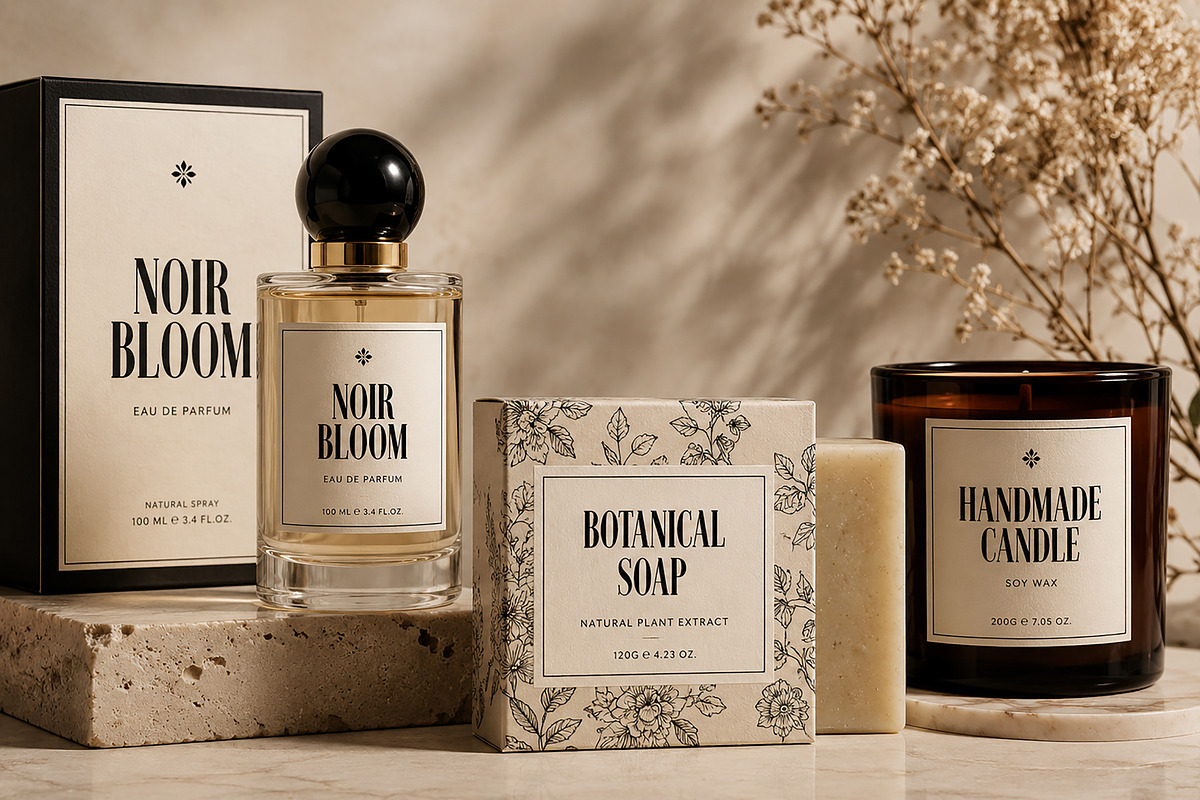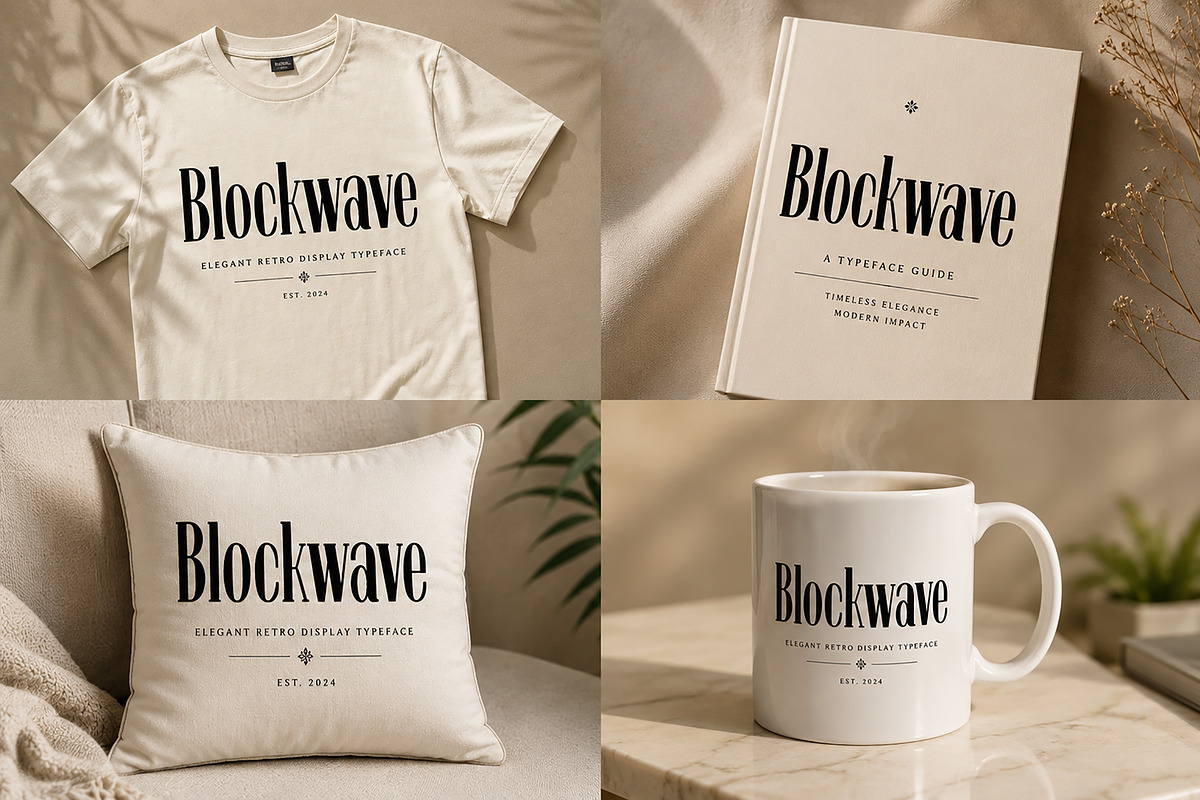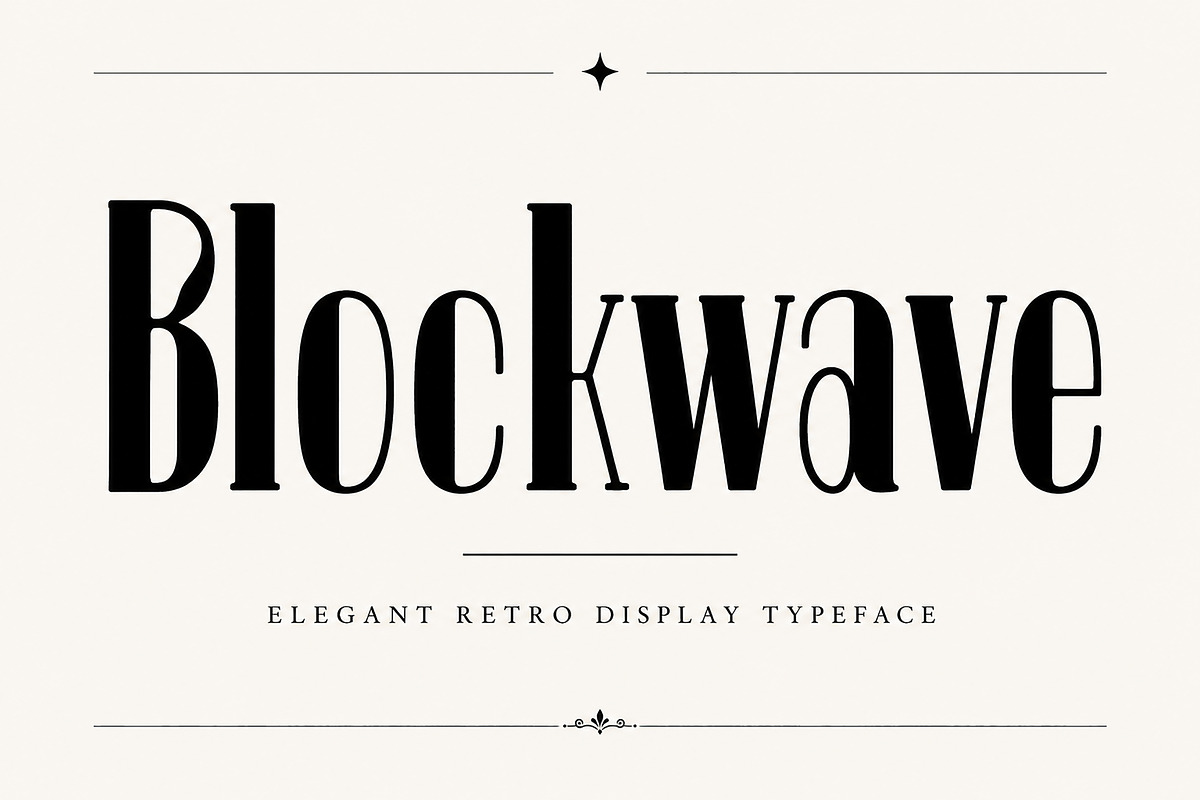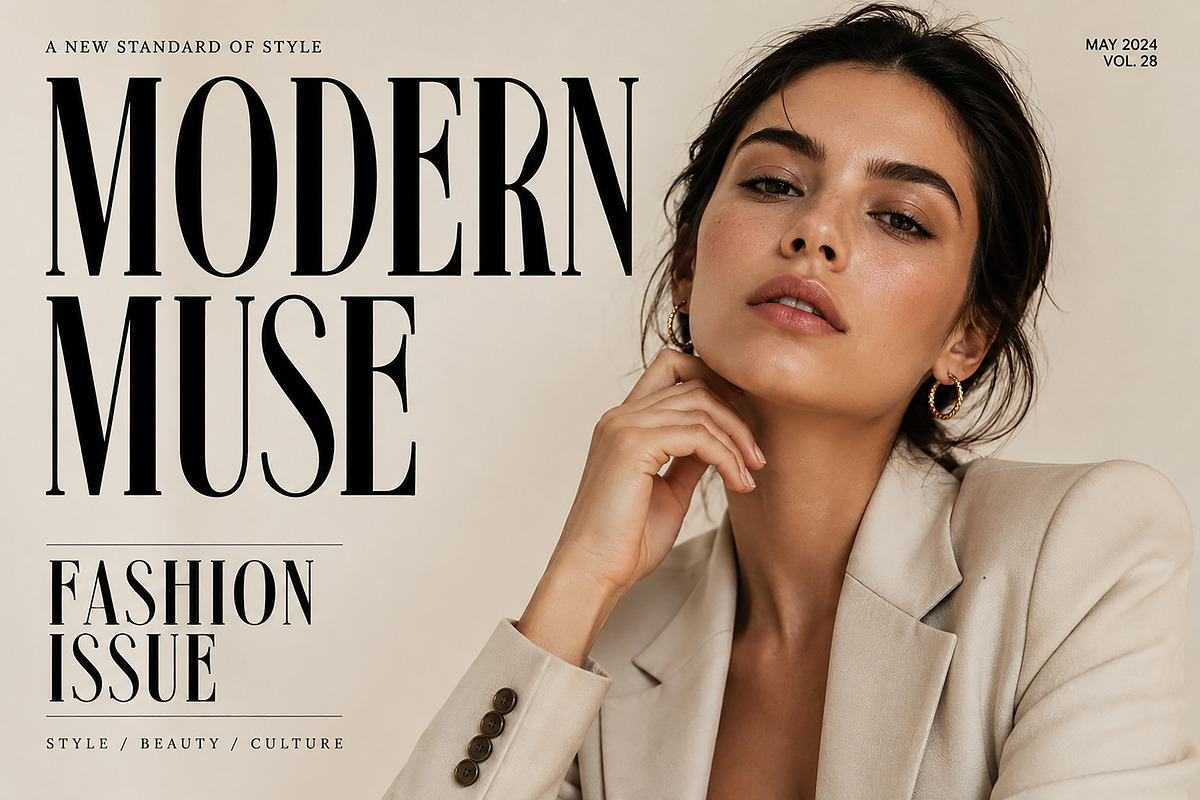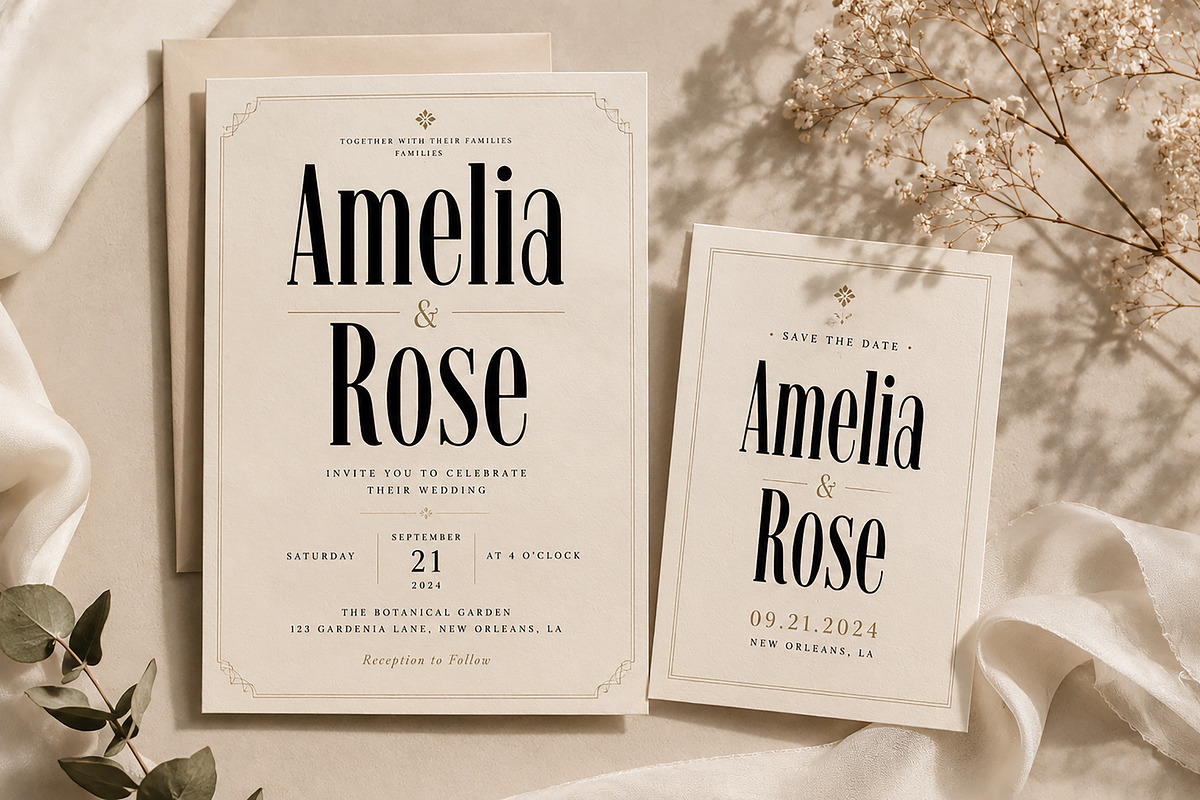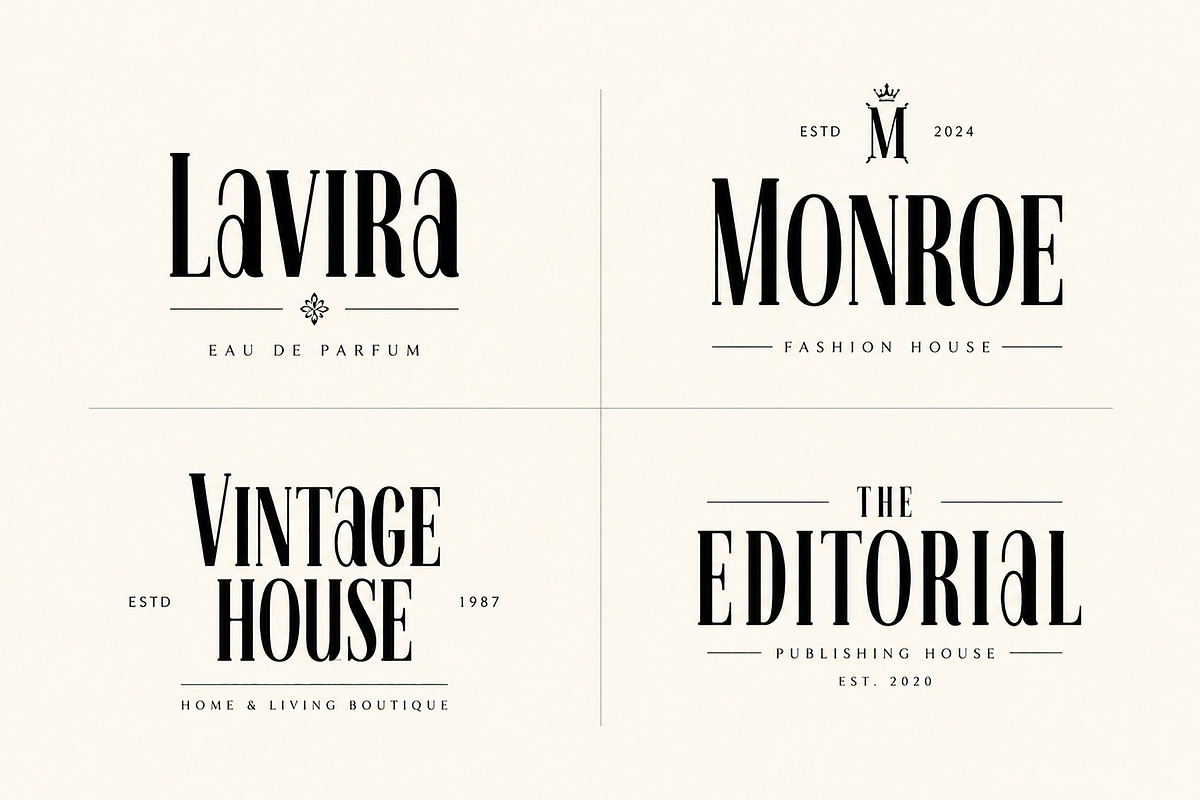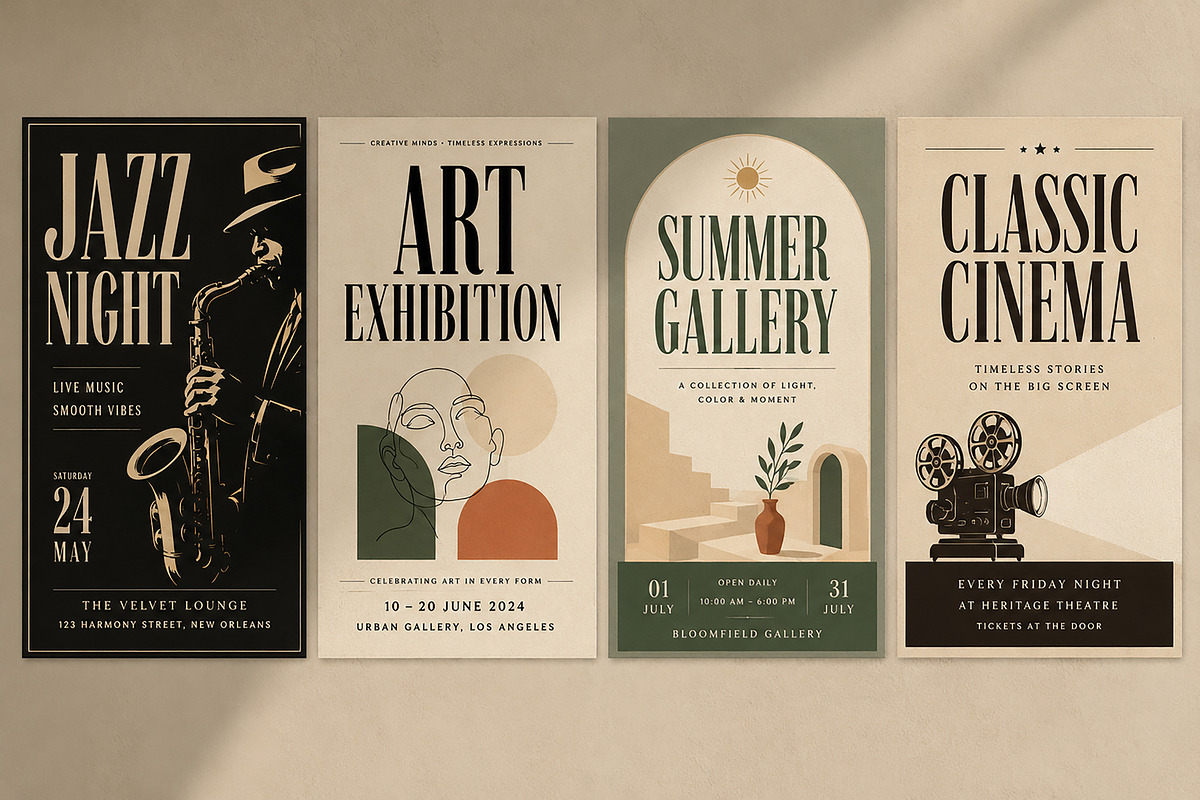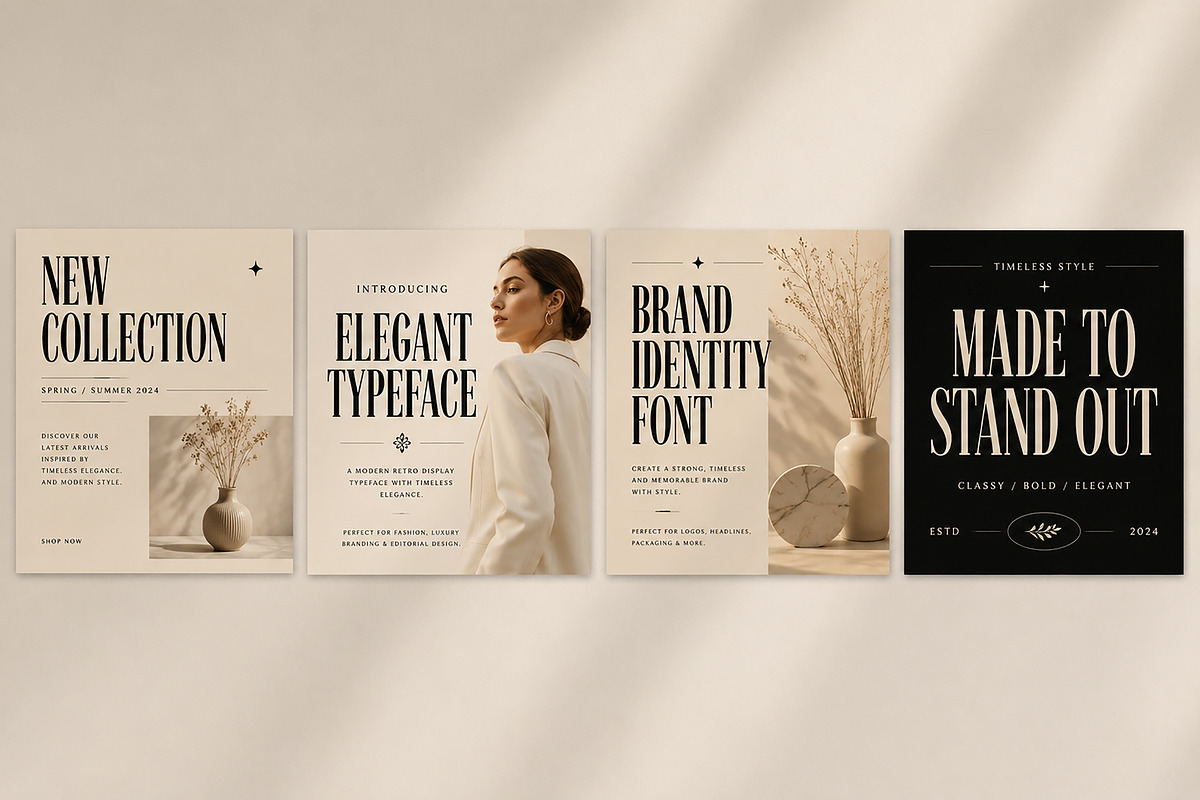
Blockwave
Blockwave – Modern Condensed Display Font
Blockwave is a tall and condensed display font featuring sleek vertical letterforms with a bold modern-retro personality. Its clean structure, sharp contrast, and stylish narrow proportions create a sophisticated visual impact perfect for standout branding and editorial typography.
Designed with a balance of elegance and boldness, Blockwave works beautifully for logos, fashion branding, posters, magazine titles, packaging, signage, merchandise, and creative headline designs. The tall condensed style gives the font a premium and contemporary feel while maintaining a timeless retro-inspired character.
Blockwave combines modern minimalism with classic display typography, making it an excellent choice for designers seeking stylish, high-impact lettering with a refined visual identity.
Fashion Branding
Luxury Logos
Editorial Titles
Posters & Headlines
Signage
Magazine Layouts
Modern Branding
Tall Condensed Style
Modern Retro Design
Elegant Vertical Letterforms
Clean Display Structure
Uppercase & Lowercase Characters